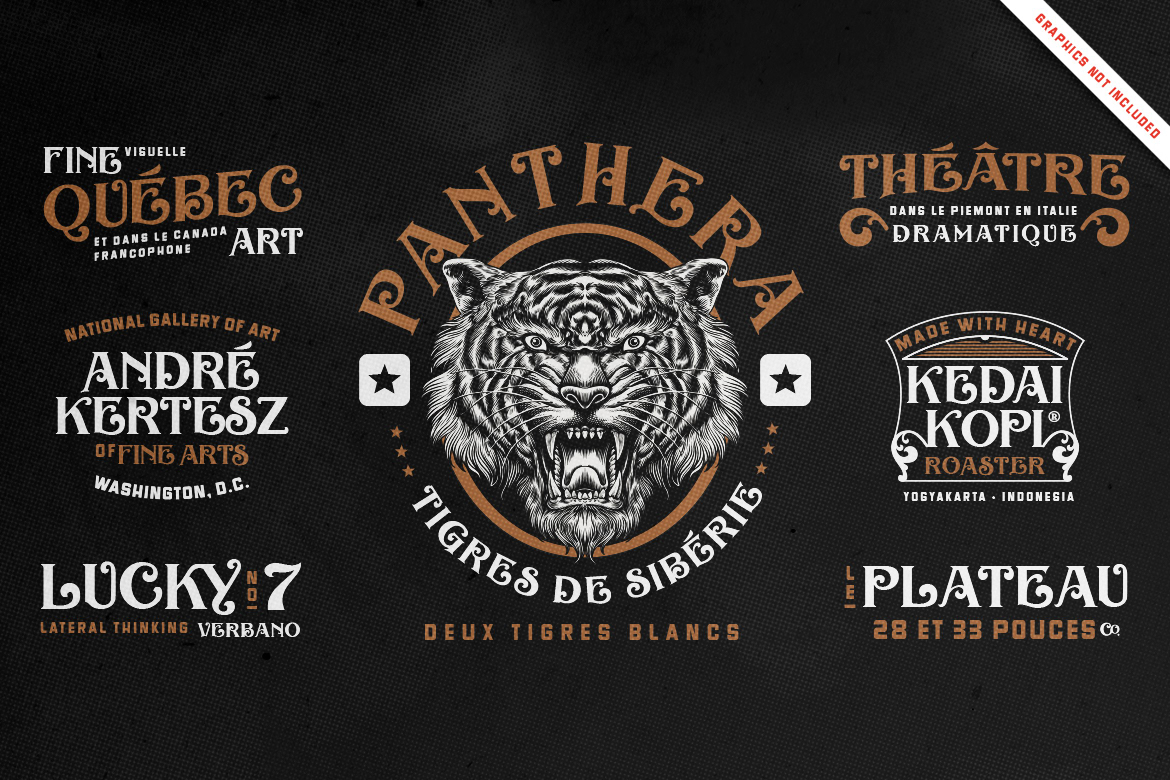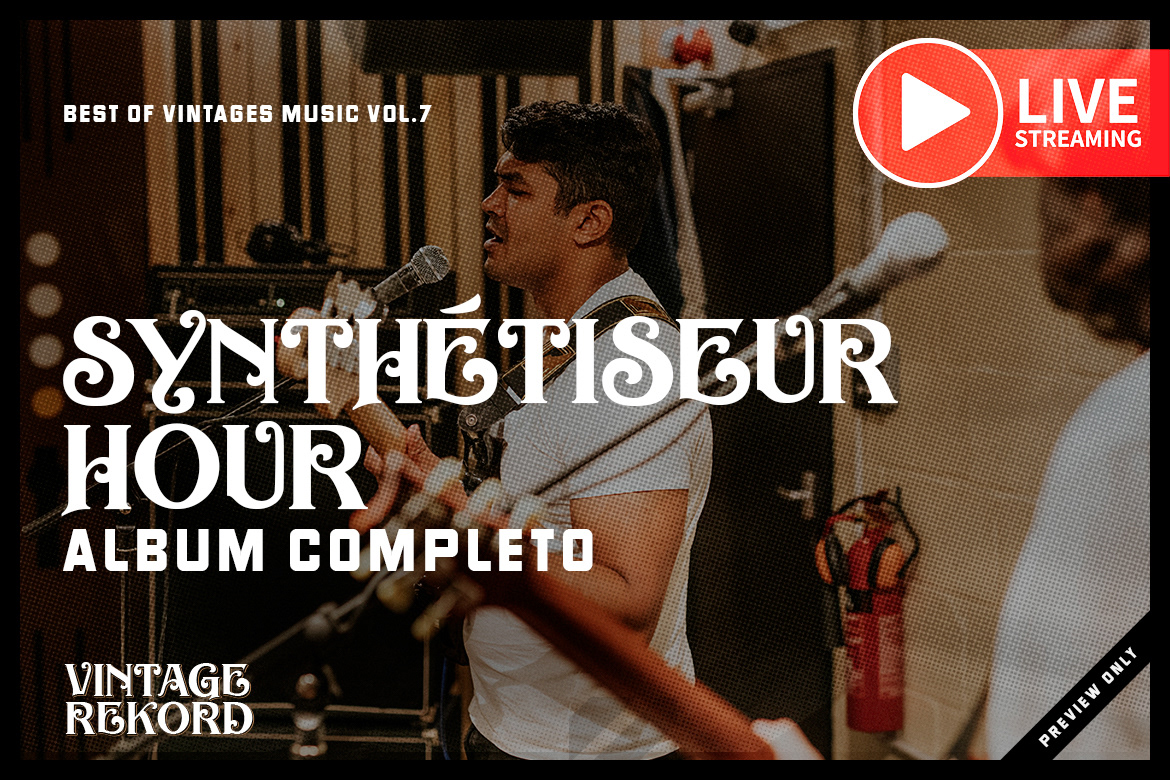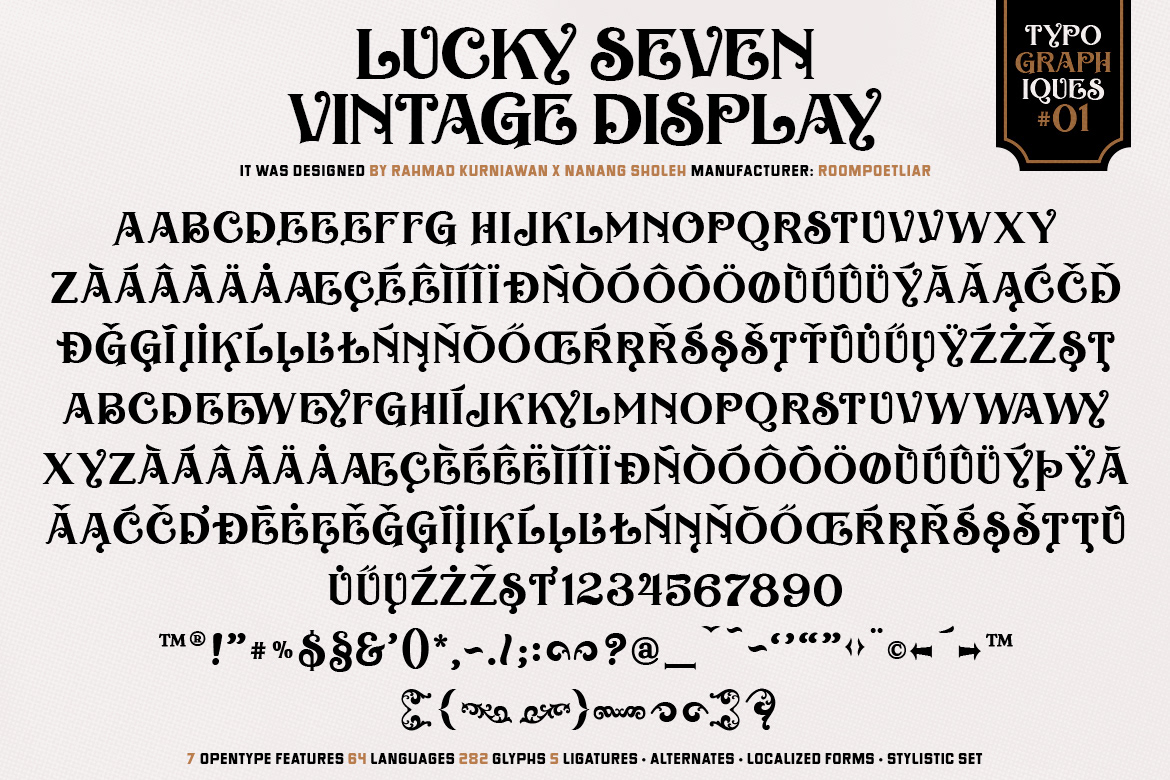
Vintage font with a well-balanced contemporary, fancy, unique, and versatile vintage serif font. It is a serif display font suits best for branding projects, logos, wedding designs, social media posts, advertisements, product packaging, product designs, label, photography, watermark, invitation, stationery, Religion events, signage board, and any projects. It makes with a high level of legibility.
• 7 OpenType features • 64 languages • 282 glyphs • 5 ligatures
• Alternates • Localized Forms • Stylistic Set